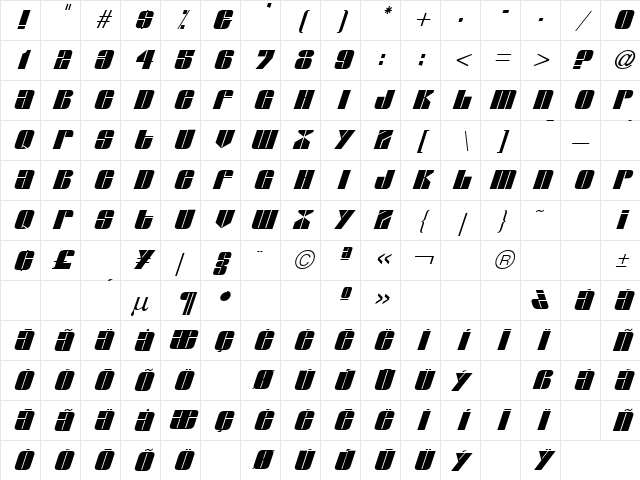
Camera's Eye 3 Italic
Design Context for Camera's Eye 3
Camera's Eye 3 is a composed and adaptable typeface that performs quietly and consistently across a wide range of design contexts. The slanted form adds forward momentum and visual energy.
Pro Tip: Use Camera's Eye 3 for emphasis, pull quotes, and subheadings where its slanted energy can add rhythm to the layout.